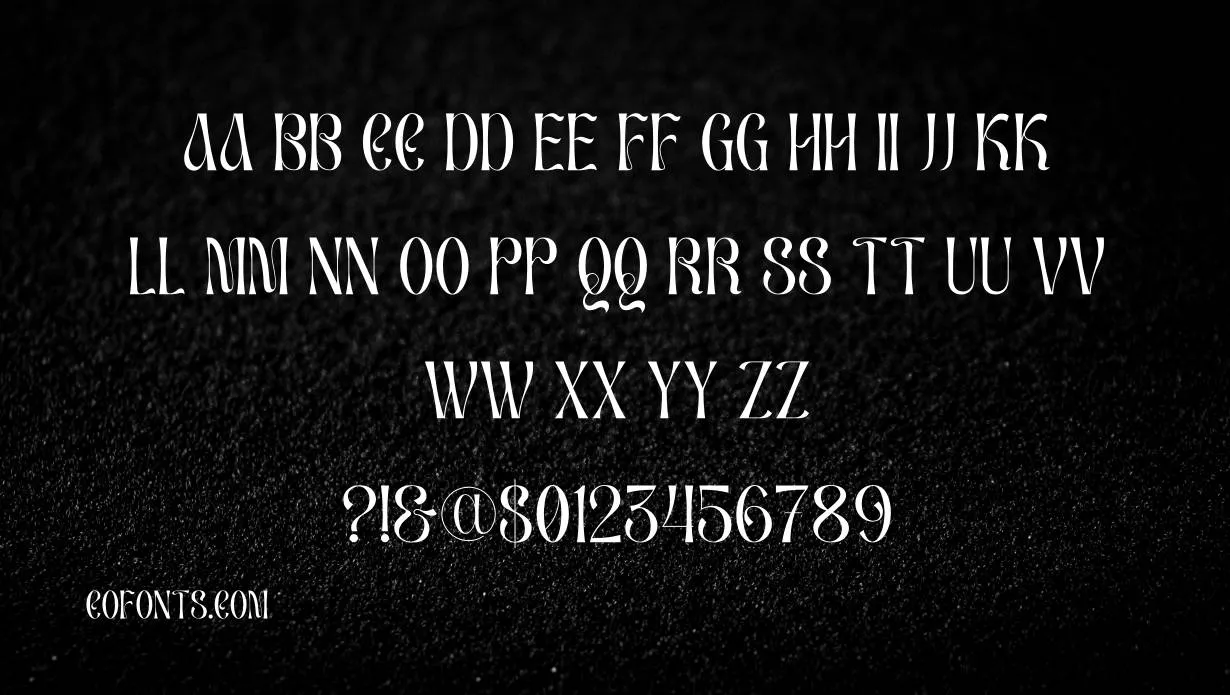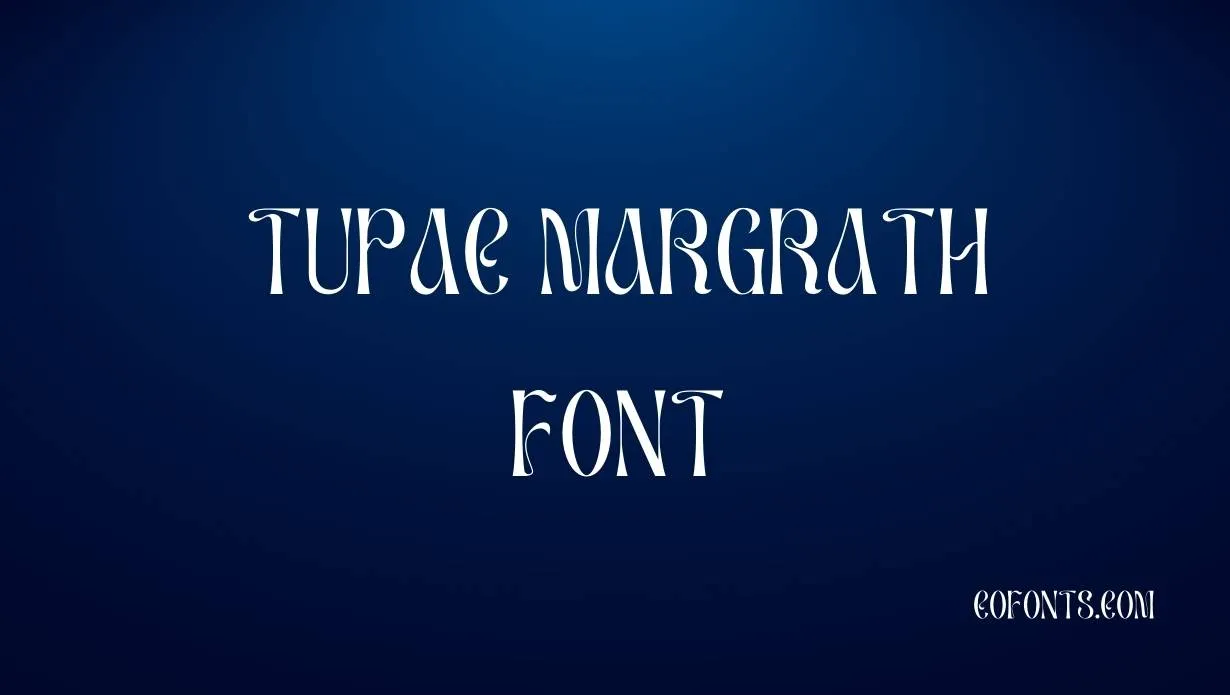
This font has open copy-and-paste functionality. This beautiful font is helpful for crafty signs and memes. The lovely font is beneficial for various social media post designs. You can utilize this beautiful font for various quality card designs.
Despite its inflexible strokes and powerful series, is a strong character. When enlarged, it is beautiful and easy to read. There are plenty of patterns in smaller sizes. The typeface is ideal for branding, books, and posters that need a sharp, elegant tone. This typeface is very similar to the cmu serif font.
Usage of Tupac Margrath Font
Furthermore, a typeface can be used as a stylish text overlay on any background image, whether for branding, houseware, or product packaging. The designers of this typeface created this design to create the best project designs possible.
Also, you can use this typeface style design when creating labels, watermarks, stationery, and modern commercials. This typeface is popular among designers because of its realistic appearance. You can also pick from a variety of gorgeous typefaces, like red lipstick and beauty brand fonts. This font is also paired with the shella clean font.
StyleSerif